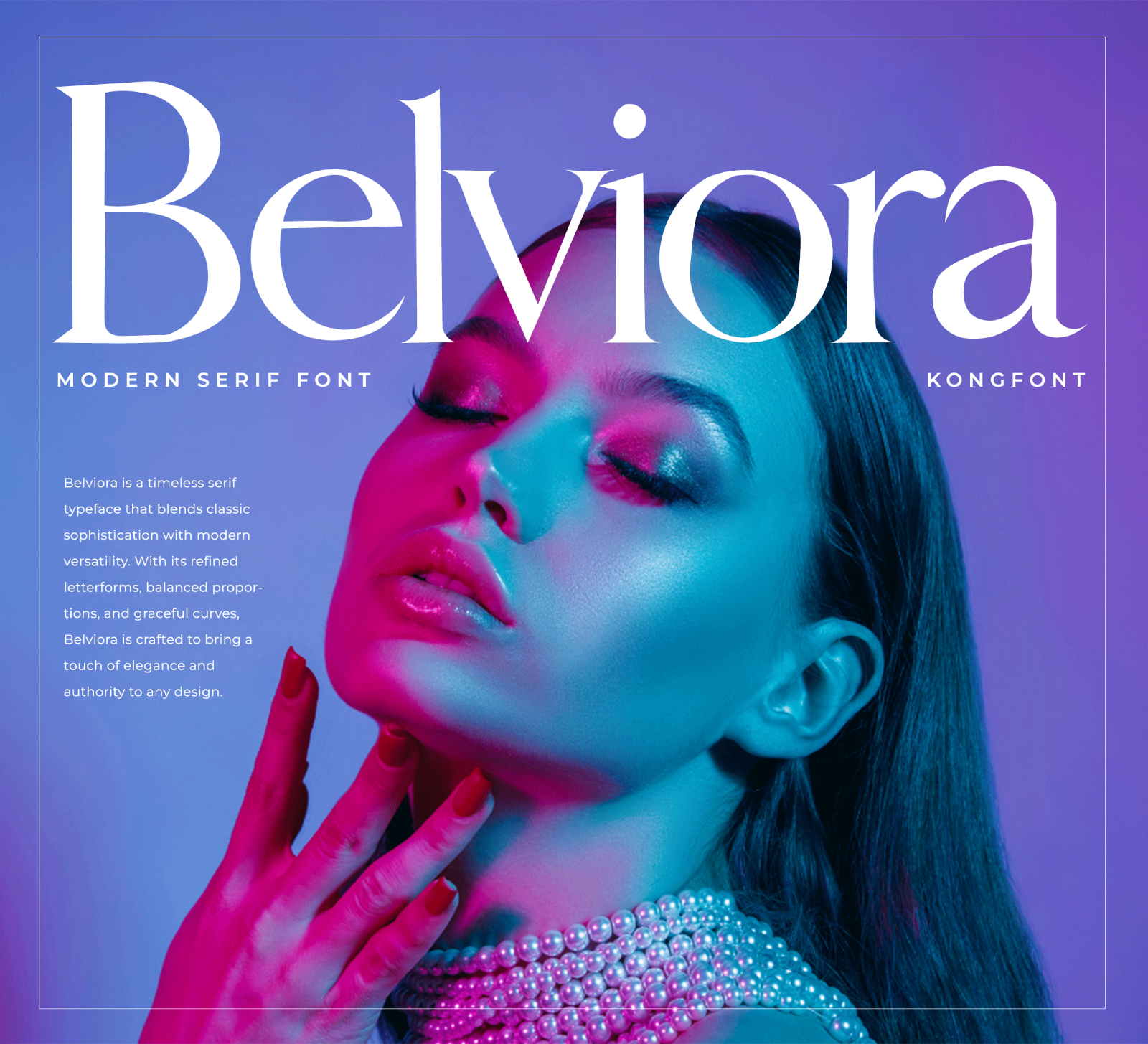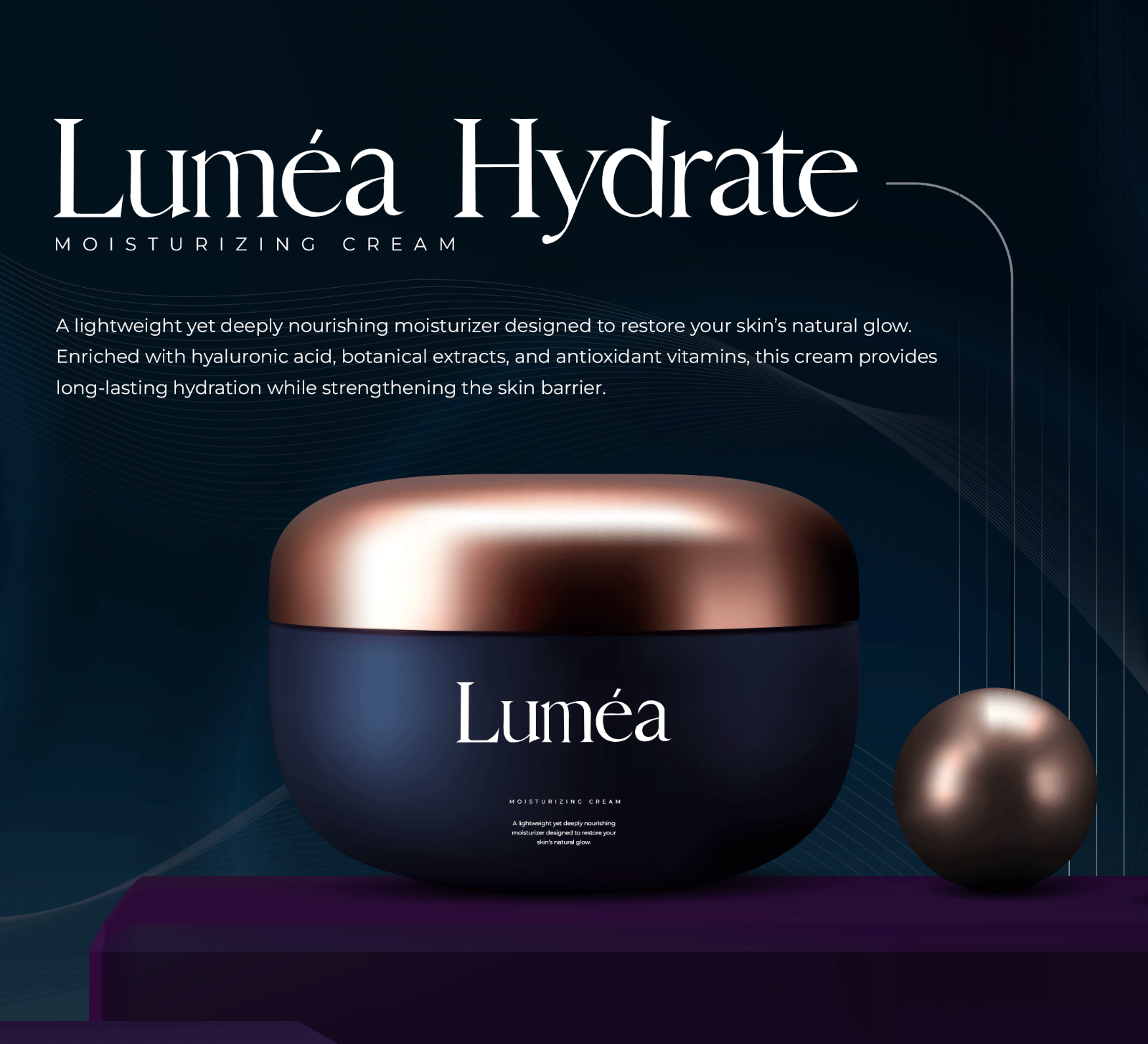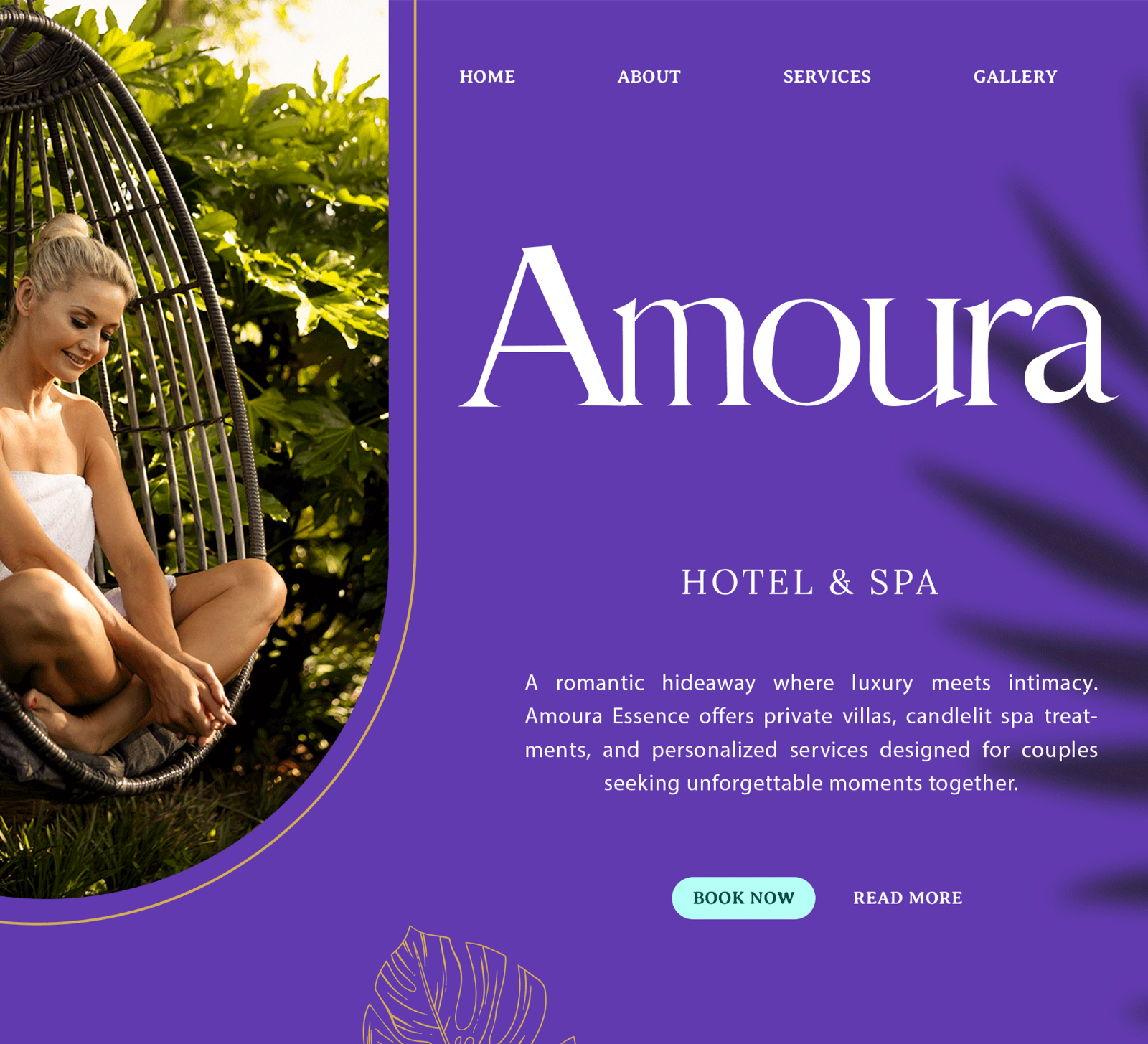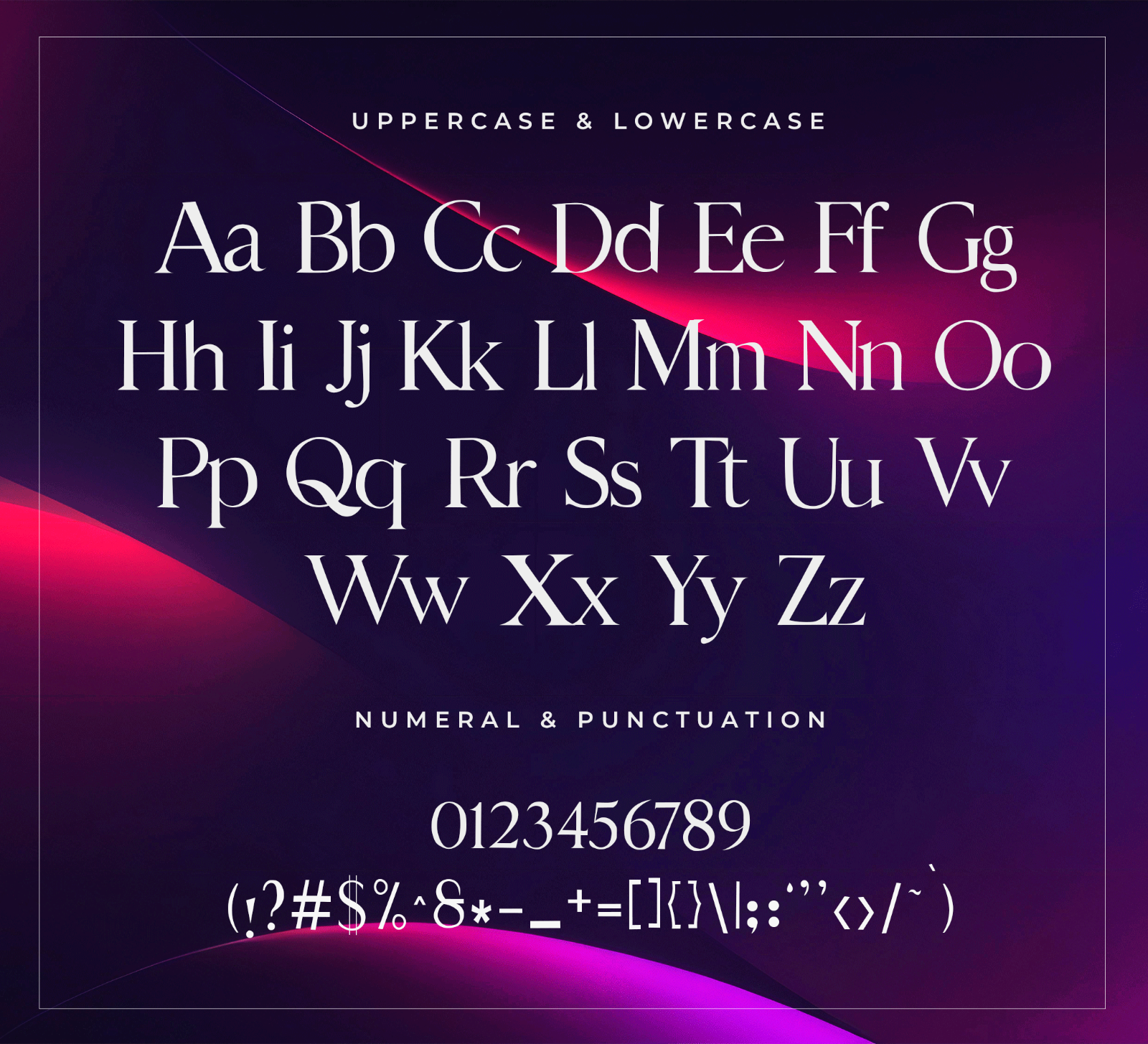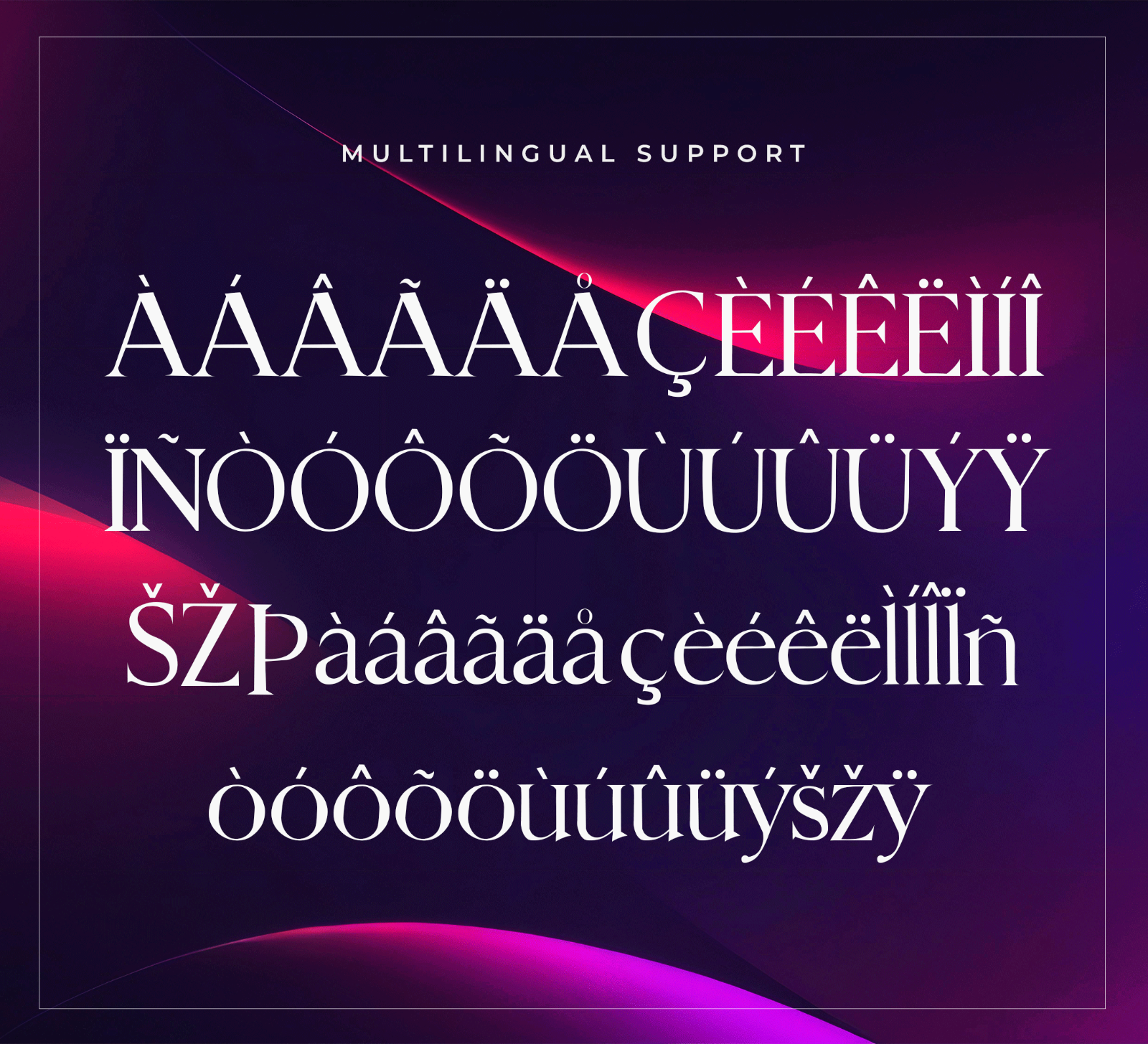
Belviora is a modern serif font with bold letterforms, elegant curves, and a refined classy style. Its clean and distinctive look makes it perfect for branding, headlines, and stylish display projects.
• Branding
• Logos
• Business cards
• Blog headers
• Quotes
• Editorial titles
• Packaging
• Creative typography